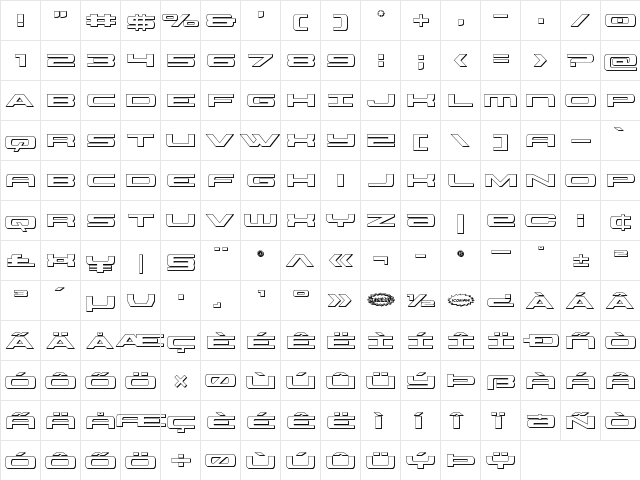
Classic Cobra 3D Regular
Design Context for Classic Cobra 3D Typeface
Classic Cobra 3D has the warm character of retro typography — evoking diners, record sleeves, and the golden age of print advertising.
Font Pairing: Combine Classic Cobra 3D with a simple slab or neutral sans — period-accurate companions reinforce the vintage feel without competing for attention.
Pro Tip: Lean into Classic Cobra 3D's period character by pairing it with aged paper textures, muted colour palettes, and vintage illustration styles.